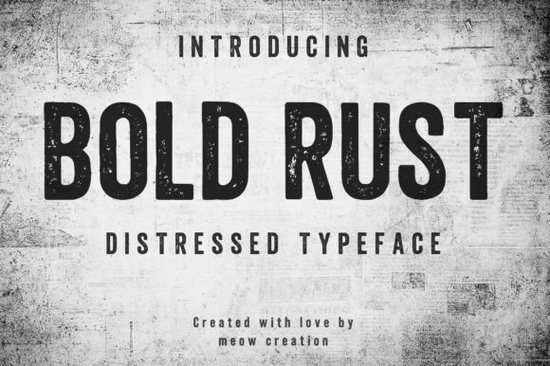
Designers, crafters, and small business owners often look for fonts that can add character and personality to their projects. If you're searching for a bold, rugged typeface with a vintage feel, the Bold Rust Font could be exactly what you need. This font stands out with its textured, distressed style, making it ideal for anything from T-shirt designs to signage and branding.
The Bold Rust Font is part of a growing trend in design that embraces imperfection and authenticity. Unlike clean, modern sans-serif fonts, this one brings a sense of history and strength. Its characters are thick and bold, with a weathered texture that gives each letter a handcrafted look. Whether you're working on a logo or a poster, this font adds a unique visual element that can’t be achieved with standard typefaces.
If you're looking for similar fonts, you might want to explore other options in the same category. For example, modern romance fonts offer a different kind of aesthetic, while other bold fonts can provide a more structured alternative. Each has its own strengths, but Bold Rust is particularly well-suited for industrial or rustic themes.
One of the key advantages of the Bold Rust Font is its versatility. It works well in both digital and print formats, making it a great choice for print-on-demand sellers and small businesses. The font’s rugged appearance can help your designs stand out in a crowded market. Whether you're creating a logo for a new brand or designing a t-shirt for a local shop, this font can add a distinctive touch that reflects your creative vision.
What Makes Bold Rust Unique?
The Bold Rust Font isn’t just about style it’s also about function. The distressed finish gives it a tactile quality, as if it was worn over time. This effect can make your designs feel more authentic and grounded. The font’s boldness ensures it remains legible even at smaller sizes, which is important for signs and labels.
For those who want to experiment with typography, this font offers a way to break away from the usual clean styles. It’s especially useful for projects that require a sense of nostalgia or a connection to the past. You can use it to create vintage-style posters, industrial-themed logos, or even packaging designs that feel handmade.
How to Use Bold Rust in Your Projects
There are many ways to incorporate the Bold Rust Font into your work. One common use is in t-shirt design, where the font’s bold and rugged look can complement graphic elements. It also works well for signage, such as store names or event banners, where a strong visual presence is needed.
Another popular application is in branding. Companies that want to convey a sense of toughness or heritage may find this font useful. It can be paired with other fonts to create contrast and balance. For example, using a clean sans-serif alongside Bold Rust can highlight the font’s unique qualities while keeping the overall design readable.
For those new to typography, experimenting with different fonts can be a fun and rewarding process. The Bold Rust Font is a great starting point for anyone looking to add some texture and character to their designs. It’s not just a font it’s a tool that can help you express your creative ideas more effectively.
Tip: Pair with Complementary Elements
When using Bold Rust, consider pairing it with images or colors that match its rugged style. For example, using a muted color palette or adding textures like wood or metal can enhance the font’s visual impact. This approach helps create a cohesive design that feels intentional and well thought out.
Whether you're a designer, a crafter, or a small business owner, the Bold Rust Font offers a way to bring a unique, vintage-inspired look to your work. With its strong presence and distinct style, it’s a valuable addition to any creative toolkit.